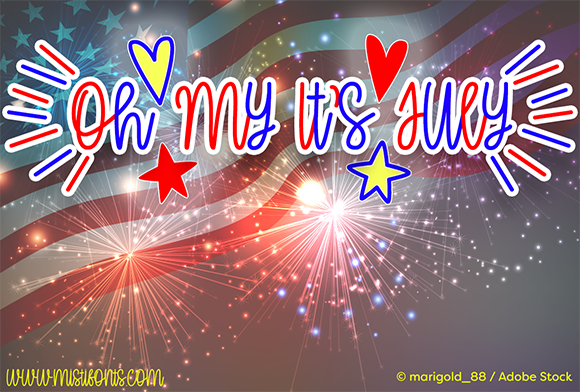
About Oh My It”s July Font
Oh My Itβs July is a fun, unicase cursive font that is perfect for your design and craft projects!
Special Symbols:
Asterisk * = Open StarBack Slash = Solid StarUnderscore _ = Open HeartVertical Bar | = Soild HeartCurly Braces {} = Bursts